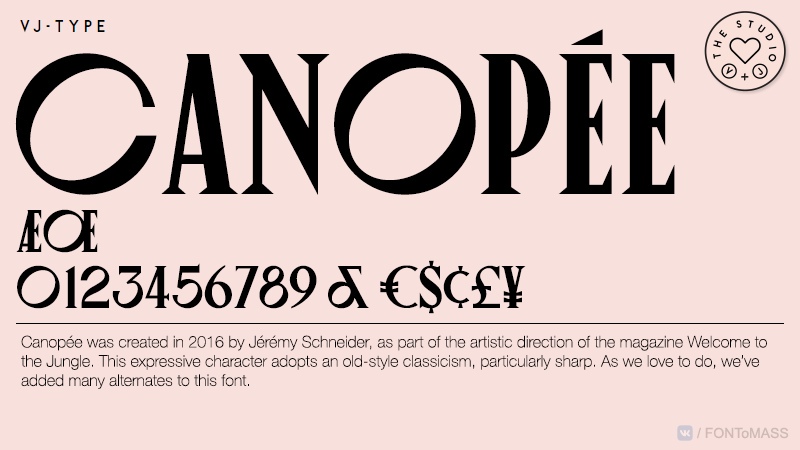
Canopee Font
Canopee Font is ideal for environmental organizations, eco-friendly product packaging, nature conservation campaigns, outdoor adventure branding, botanical garden materials, sustainable fashion labels, green technology companies, forest preservation projects, organic farming communications, and natural wellness brands.
What makes Canopee Font so exciting is its organic embodiment of natural growth and environmental harmony that captures the lush vitality and protective shelter of forest canopies through sophisticated typographic design. This naturally inspired typeface features flowing letterforms with organic character variations and tree-like proportions that immediately convey growth, protection, and ecological balance. The font's biophilic construction and earth-friendly aesthetic create an instant sense of natural connection and environmental consciousness, making it perfect for projects that need to communicate sustainability, natural beauty, and the vital importance of protecting our planet's precious ecosystems to audiences seeking authentic environmental solutions and meaningful ecological engagement.
The Canopee Font family typically includes multiple organic weights and natural styles, often featuring light, regular, and bold variations along with flowing italic versions. Environmental font collections frequently offer additional botanical elements such as leaf ornaments, tree symbols, and nature-inspired decorations that enhance the ecological aesthetic and provide designers with comprehensive tools for creating environmentally conscious and visually compelling communications.
The ecological authenticity of Canopee Font makes it particularly effective for targeting demographics that prioritize environmental responsibility and sustainable living in their personal and professional choices. Environmental marketers and sustainability professionals will find this font especially valuable for materials that must establish immediate ecological credibility and connect with audiences seeking genuine environmental solutions and meaningful conservation action.
What sets Canopee Font apart is its ability to convey natural beauty while maintaining the professionalism necessary for effective environmental advocacy and business communication. This balanced characteristic makes it suitable for both grassroots environmental campaigns and corporate sustainability initiatives where projecting ecological authenticity and business competence must coexist harmoniously.
Professional designers recognize that Canopee Font brings invaluable environmental credibility to projects across industries including renewable energy, sustainable agriculture, eco-tourism, and green technology. Its natural character and ecological appeal make it essential for organizations whose mission centers on environmental protection, sustainability education, and creating a healthier planet for future generations.
The thoughtful environmental consciousness of Canopee Font ensures consistent ecological messaging across all sustainability-focused communication applications.